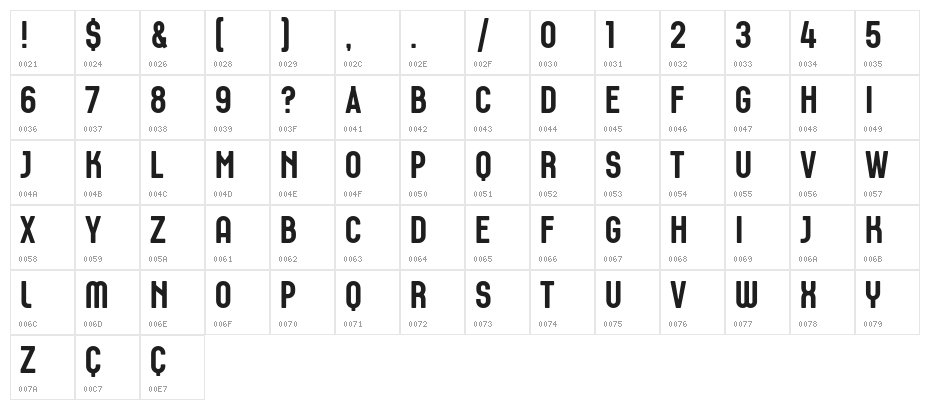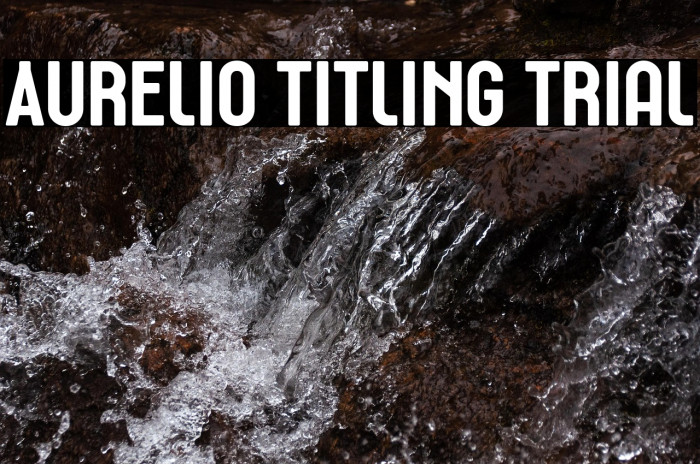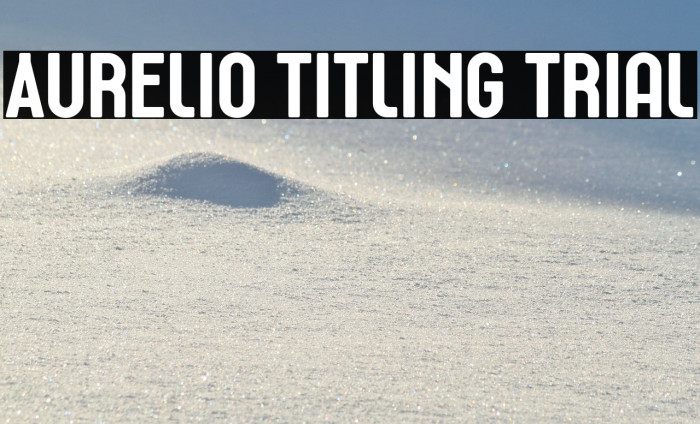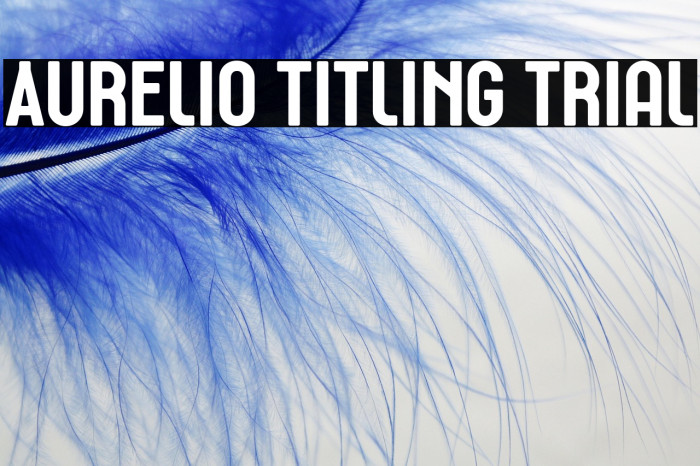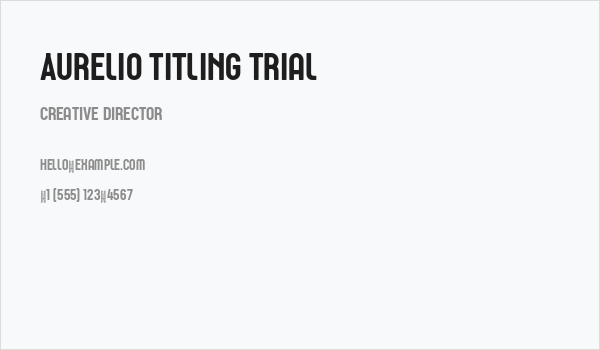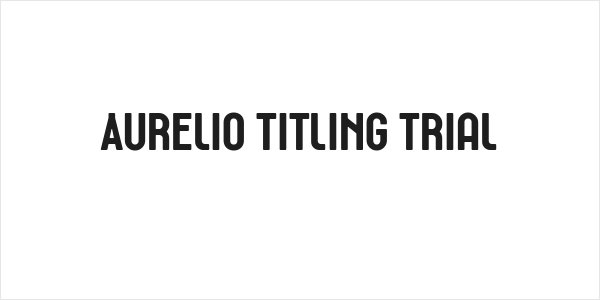
Aurelio Titling Trial Font
Aurelio Titling Trial Description
This font features a bold and modern sans-serif style with a strong geometric structure. The characters are uniformly thick, providing a consistent and robust appearance. The uppercase letters are prominent and well-defined, making them ideal for headlines and titles. The numbers and special characters maintain the same boldness, ensuring readability and visual impact. The overall design is clean and straightforward, with a slight rounded edge that adds a touch of softness to the otherwise strong and assertive look. This font is versatile and can be used in various design contexts where clarity and emphasis are required.